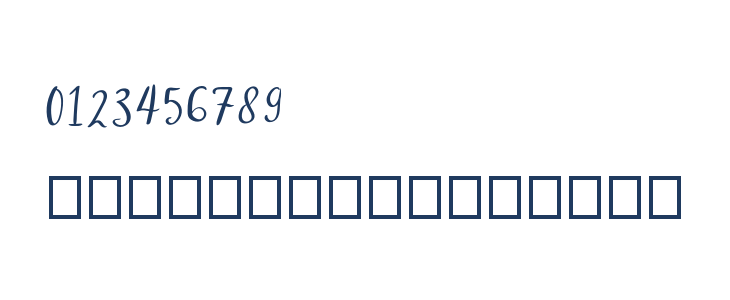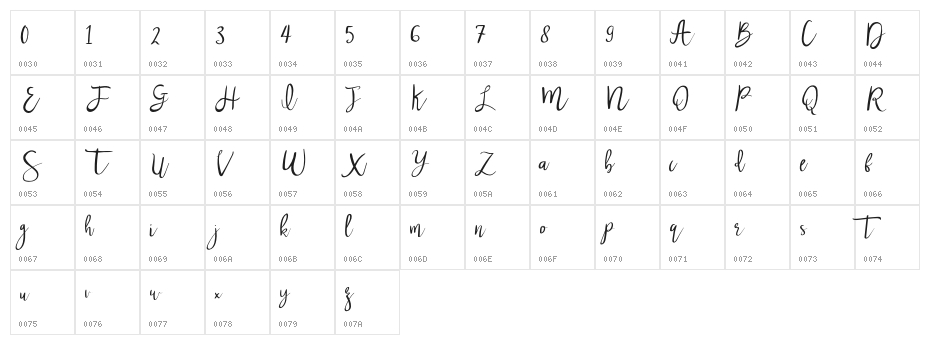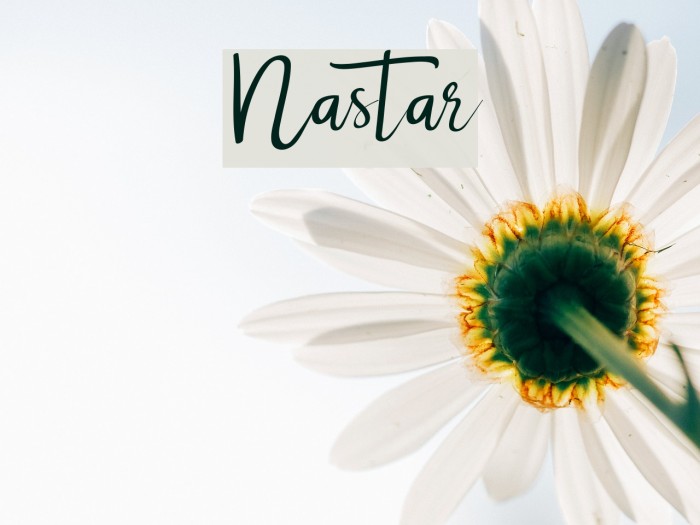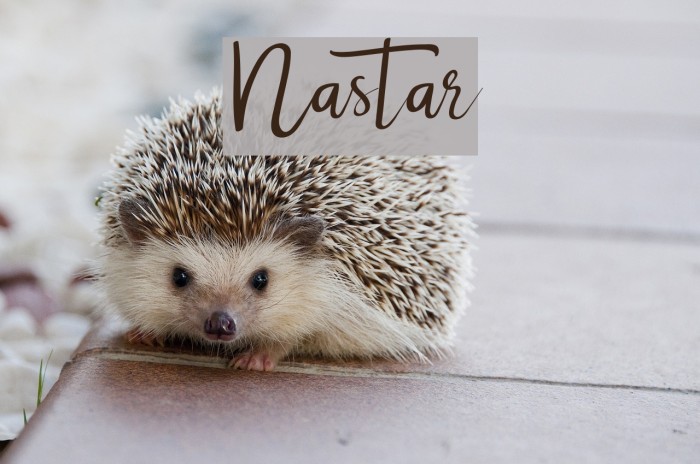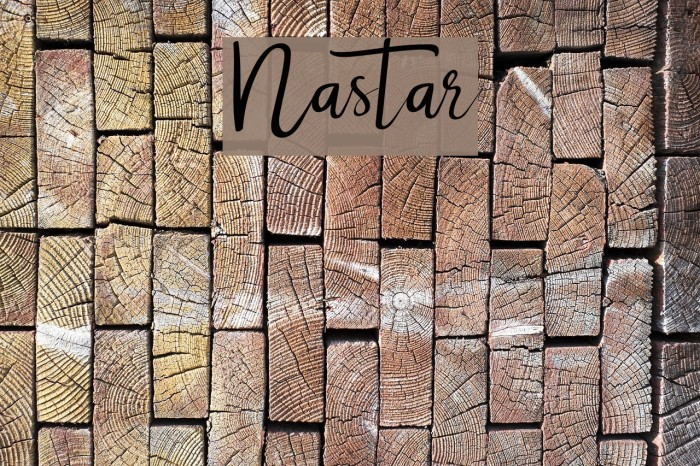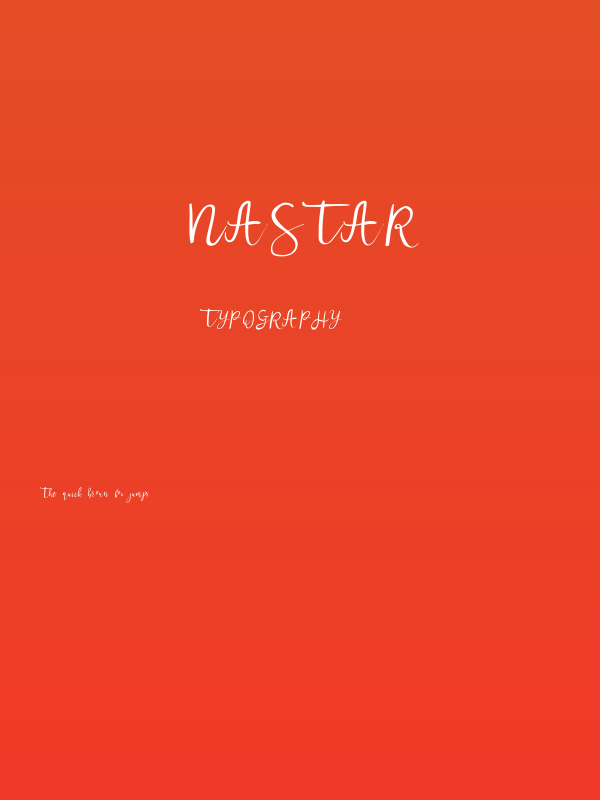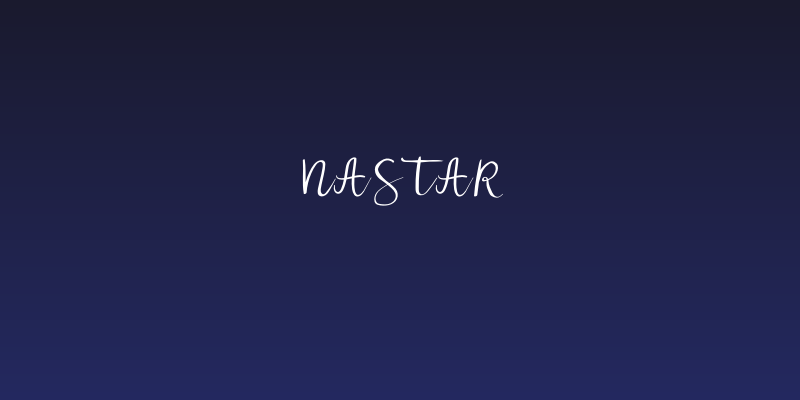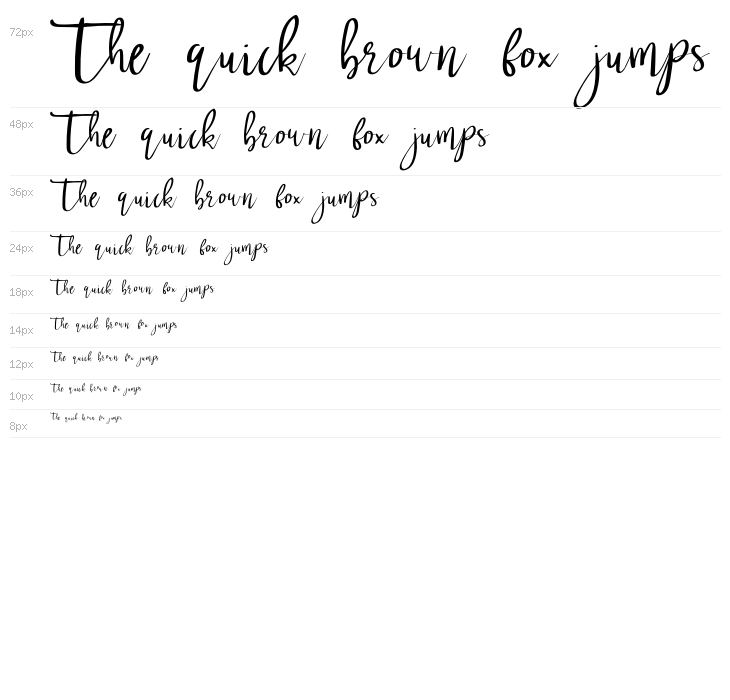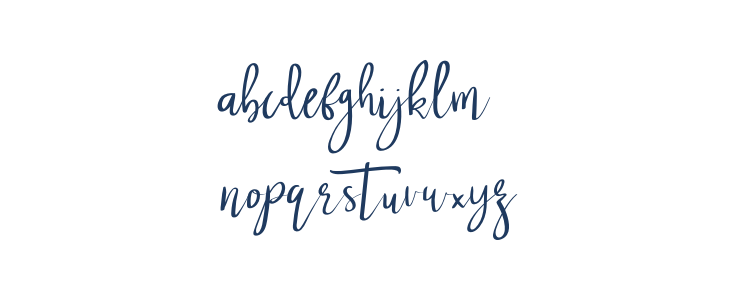
Nastar Font
Nastar Description
This font features a flowing, cursive style with a modern twist. The letters are elegantly connected, giving it a handwritten appearance that is both sophisticated and approachable. The uppercase letters are bold and expressive, while the lowercase letters maintain a graceful continuity. The numerals are clear and consistent with the overall style, making them easily readable. The font's design is perfect for adding a personal touch to any project, with its smooth curves and stylish flair. Its versatility makes it suitable for a variety of creative applications.
| Use Case | Logos, Invitations, Social Media |
| Proposed Projects | Ideal for wedding invitations, greeting cards, branding, and social media graphics. |